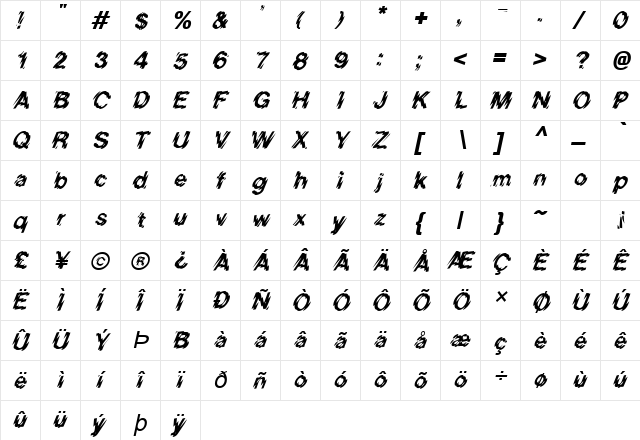
Blur Italic
Design Context for Blur Typeface
Blur is a composed and adaptable typeface that performs quietly and consistently across a wide range of design contexts. The slanted form adds forward momentum and visual energy.
Pro Tip: Try Blur for annotation and caption copy alongside an upright companion — the contrast in angle creates a dynamic but ordered typographic system.